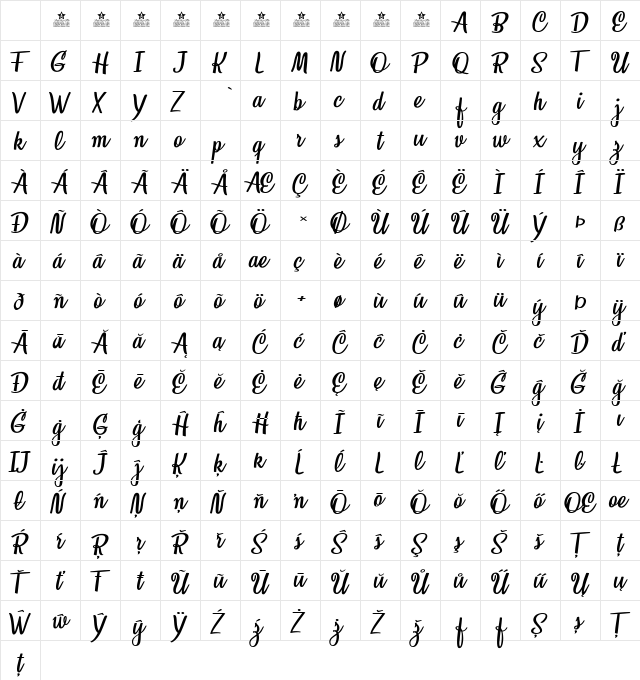
Complete Honeymoon Regular glyph index. Displaying only characters natively supported by Honeymoon Regular font.
Honeymoon is a composed and adaptable typeface that performs quietly and consistently across a wide range of design contexts.